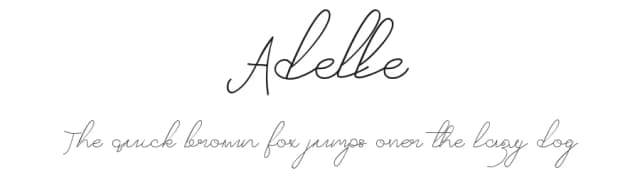
About Brunella Font
simple and elegant fonts that can be applied to logos, posters, aircrafts, brands, food and beverage,
and biased in various languages,
| Designer | darnowiyanto |
Brunella Font is a script font that shines as a display or heading face. Pair it with a clean sans-serif or serif font for body text β the contrast creates a clear hierarchy while the two styles stay balanced and easy to read.